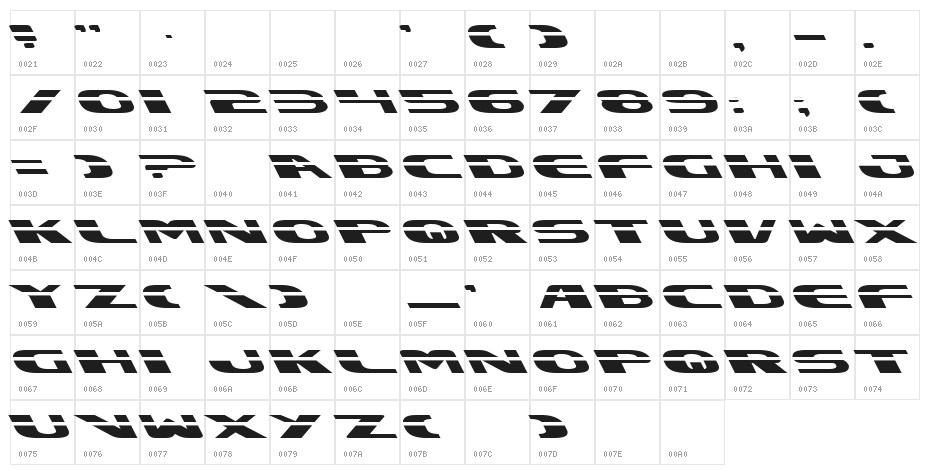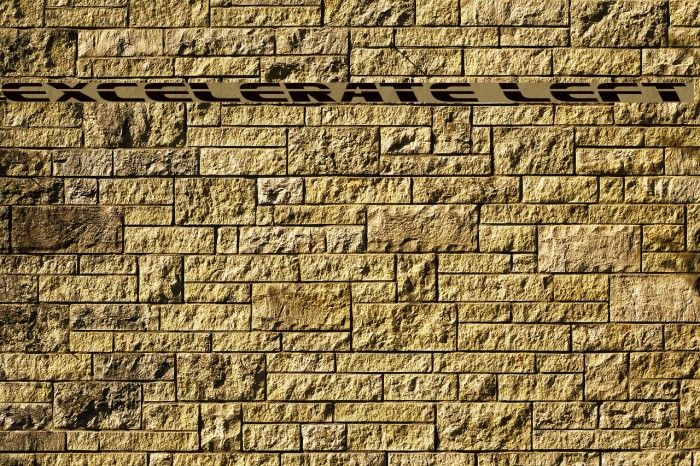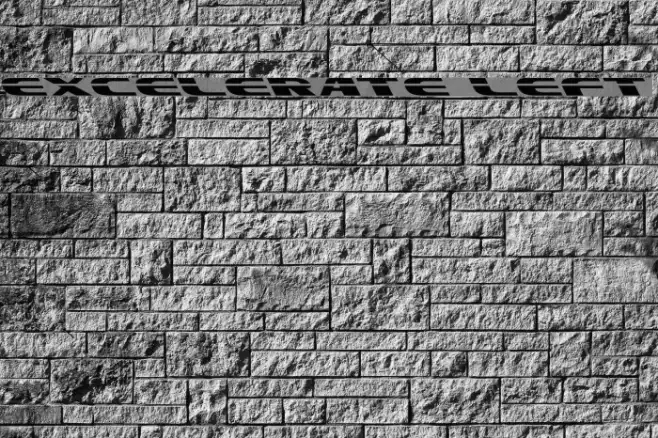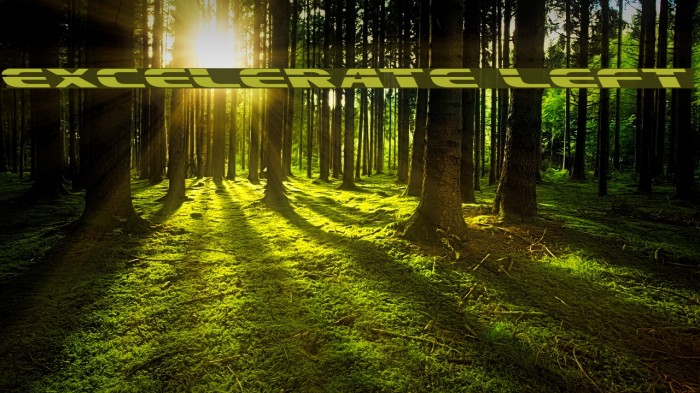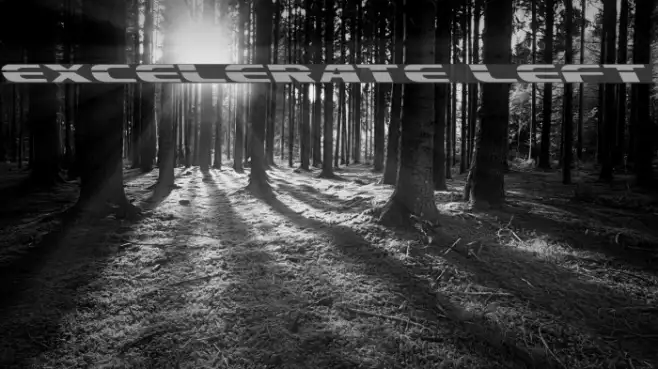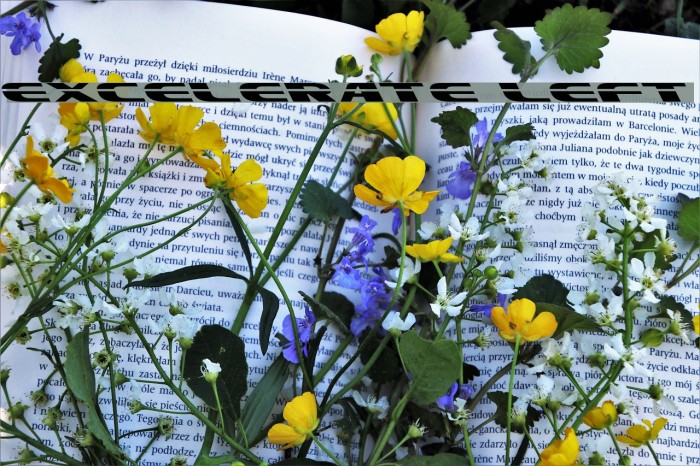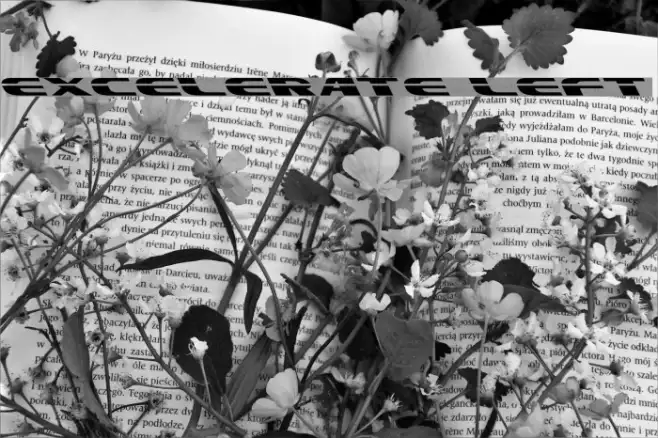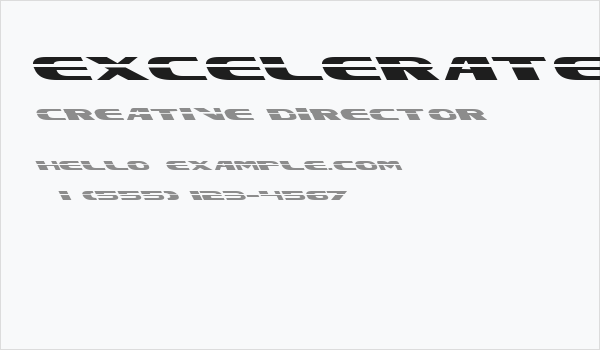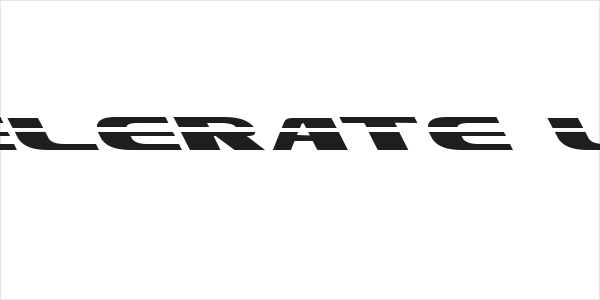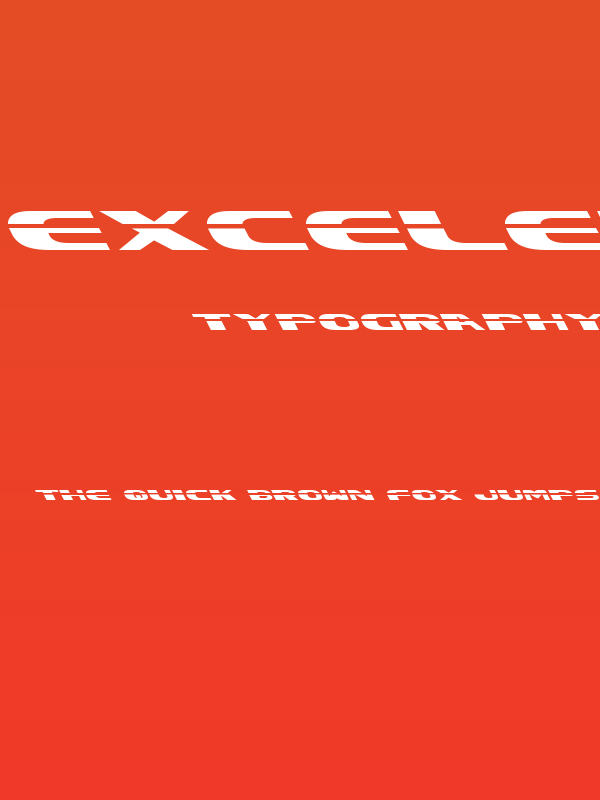
Excelerate Left Font
Excelerate Left Description
This font features a dynamic and futuristic design, characterized by its bold and angular letterforms. The characters are constructed with a series of horizontal cuts and slants, giving it a sense of motion and speed. The uppercase letters are particularly striking, with sharp edges and a geometric aesthetic that suggests a modern, tech-inspired style. The numbers and special characters follow the same design principles, ensuring consistency across all glyphs. This font is ideal for projects that require a bold statement, such as technology branding, automotive advertising, or sports-related materials.
| Overall Style | Futuristic, Dynamic |
| Proposed Projects | Ideal for technology branding, automotive advertising, sports materials, and futuristic designs. |